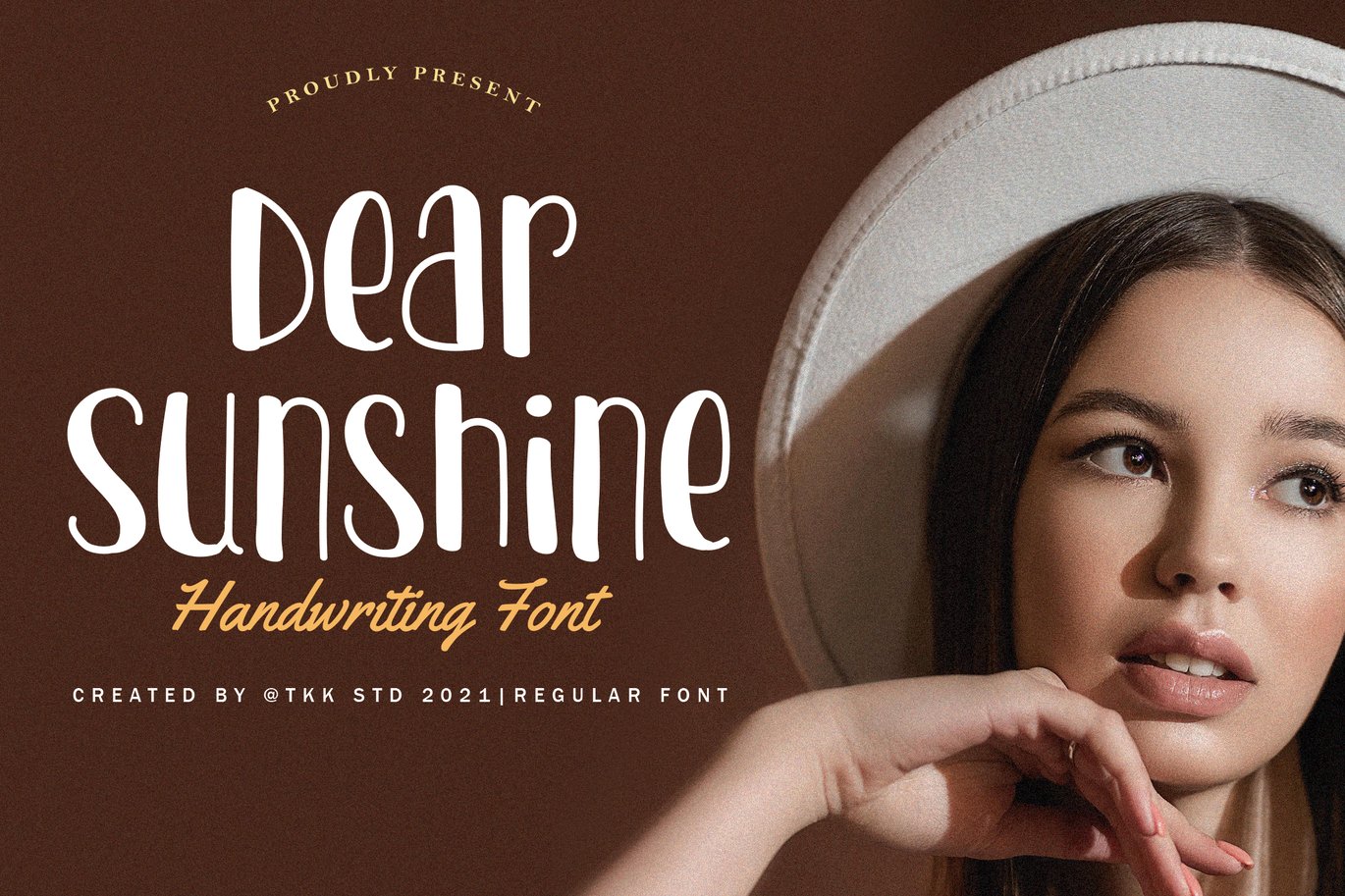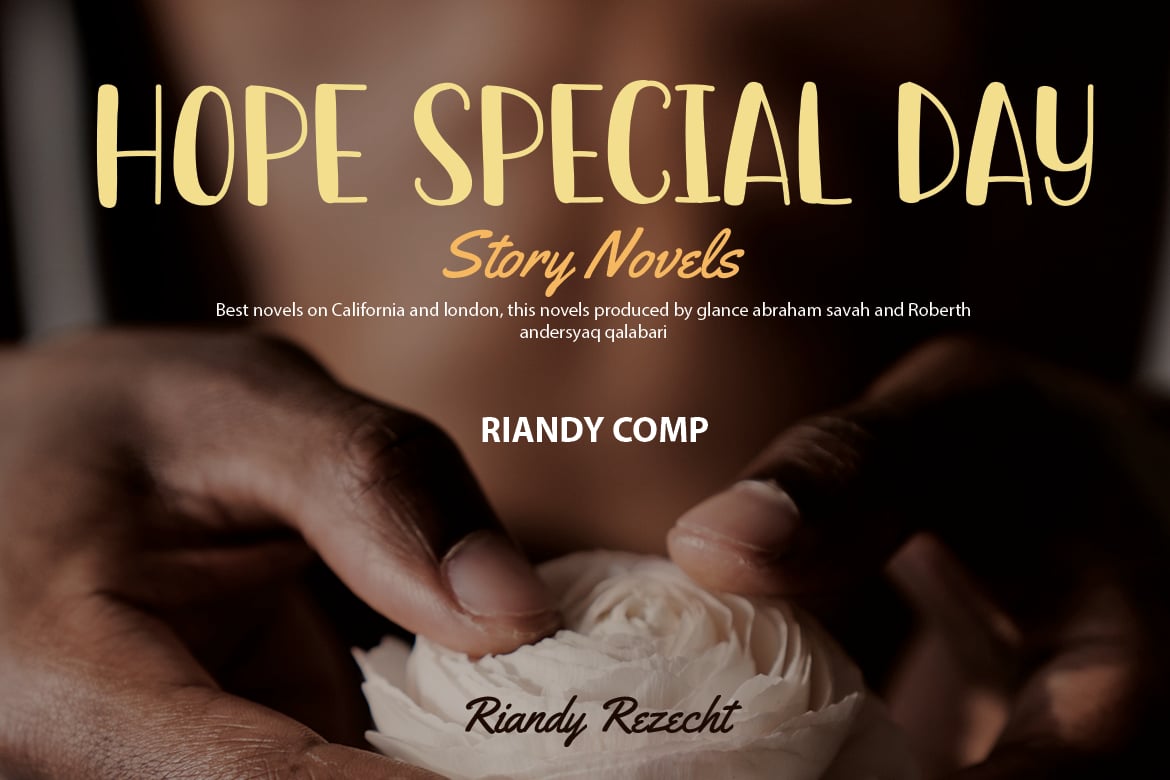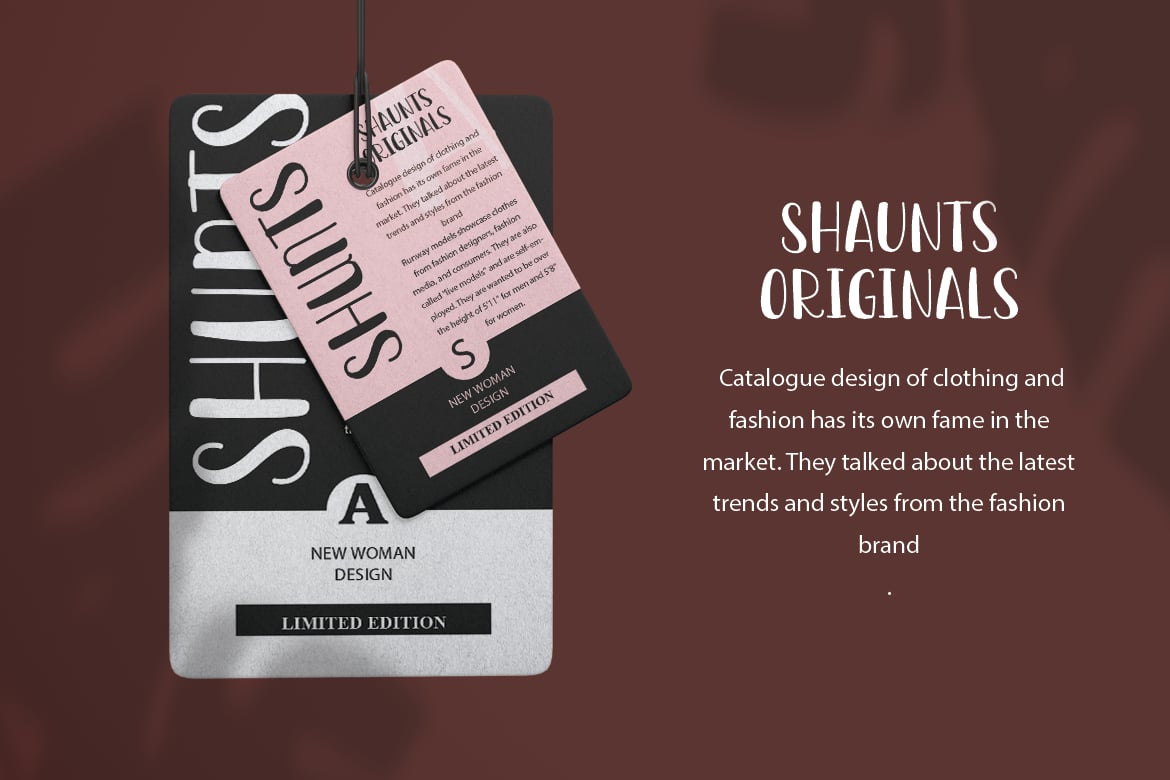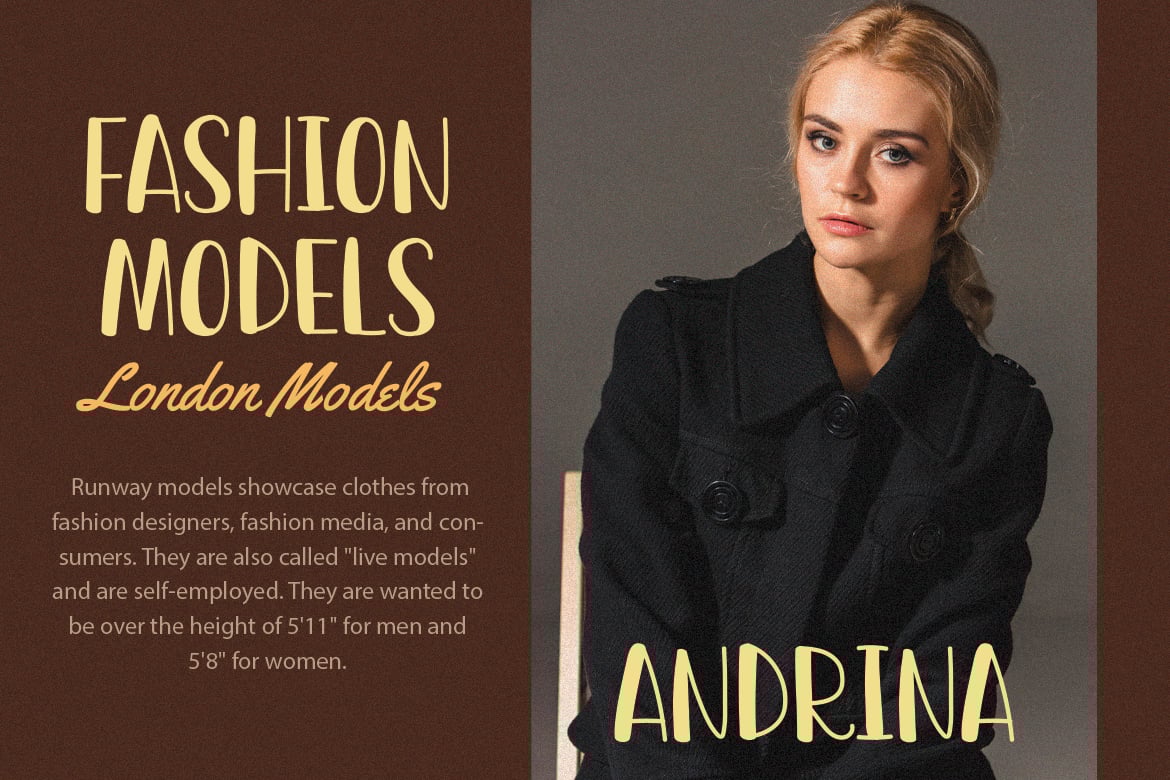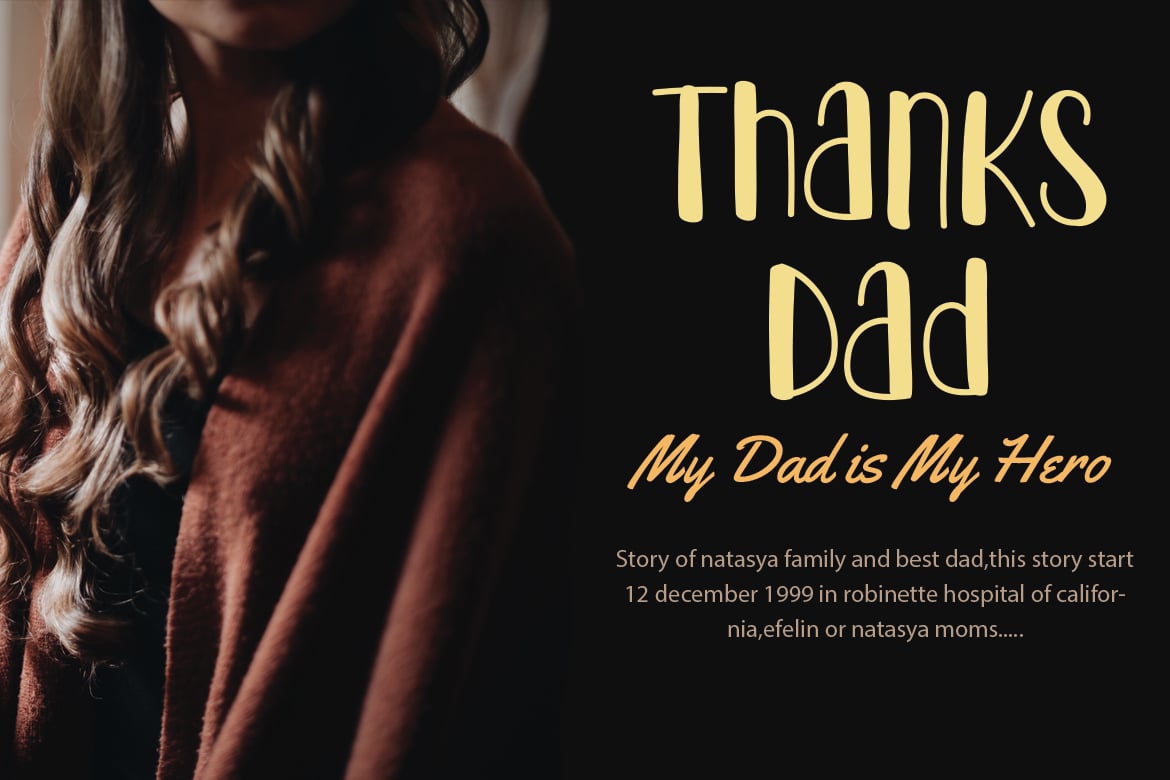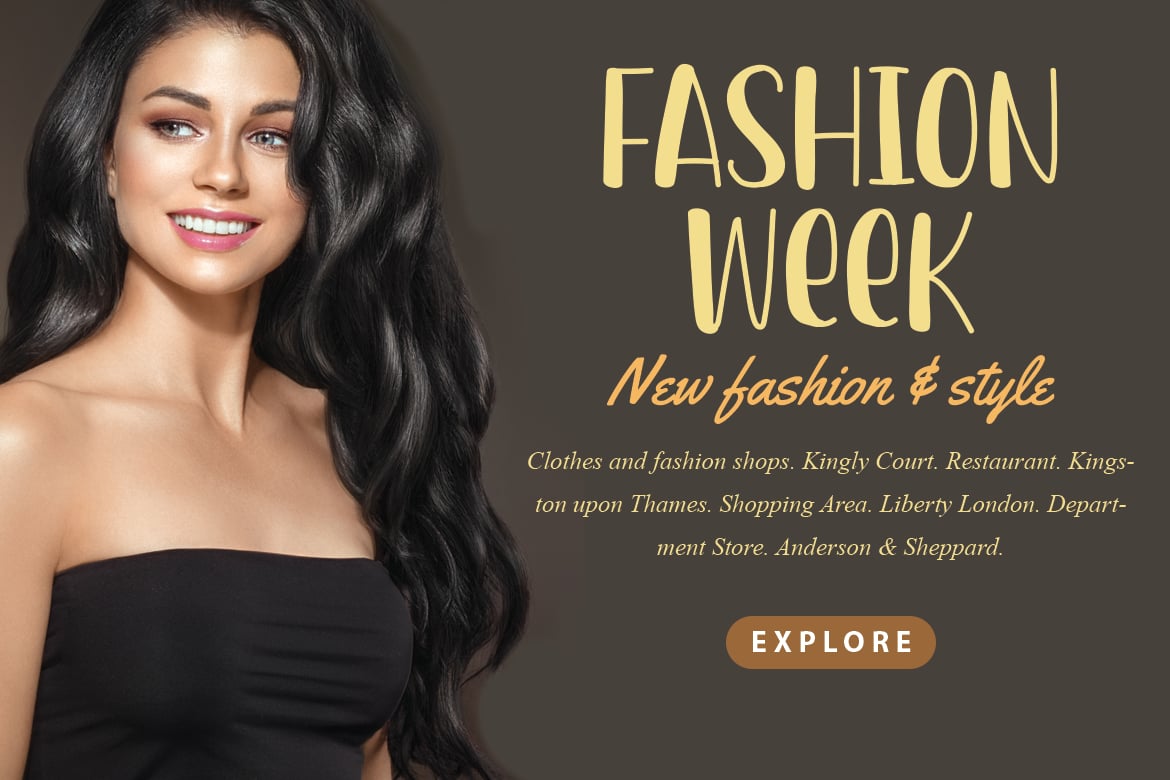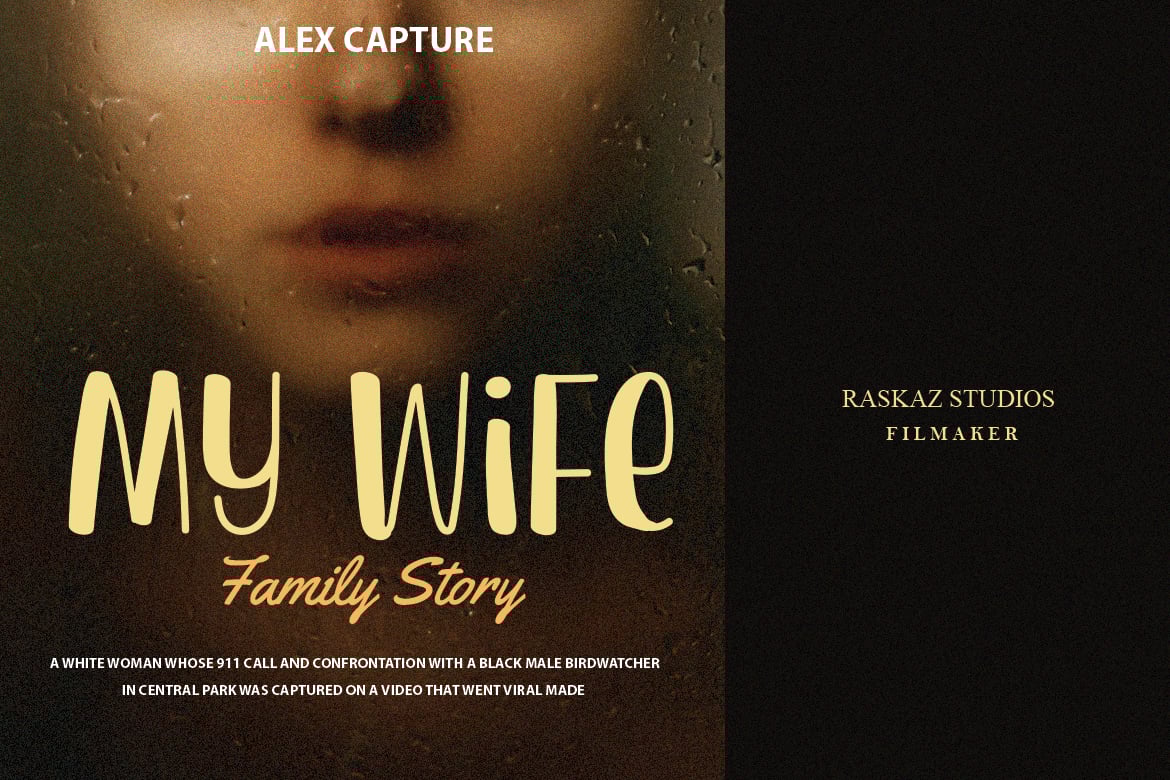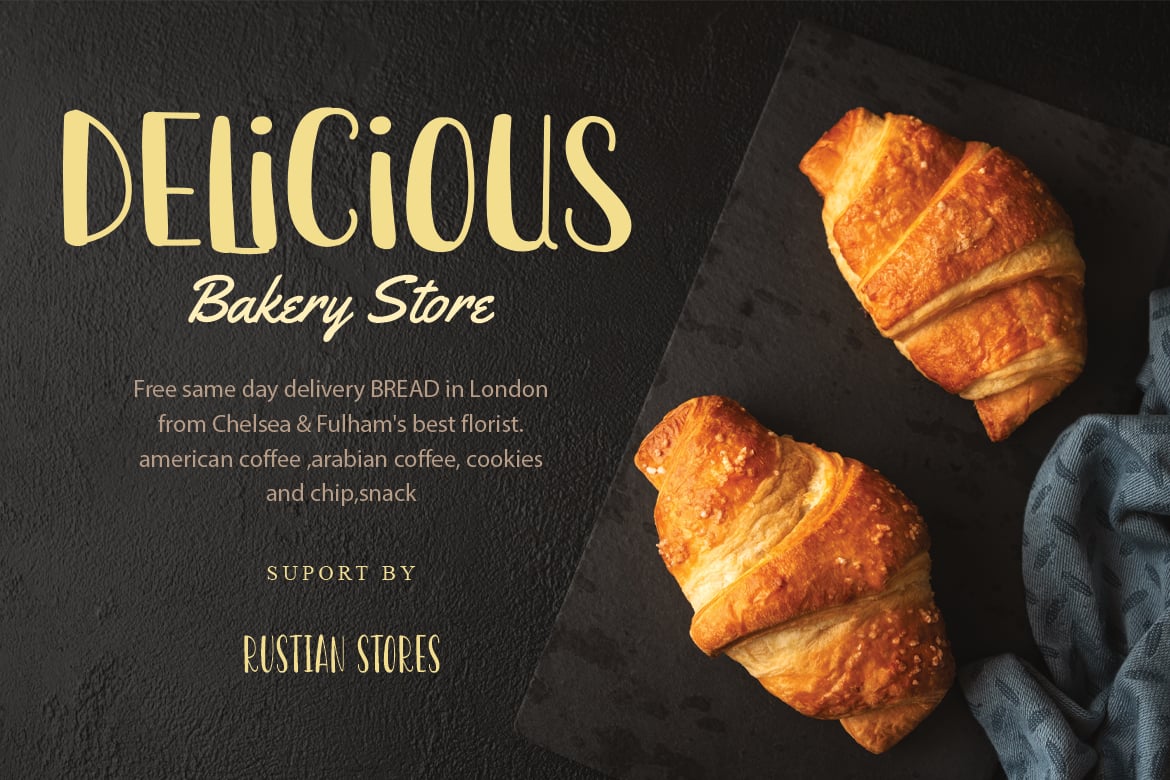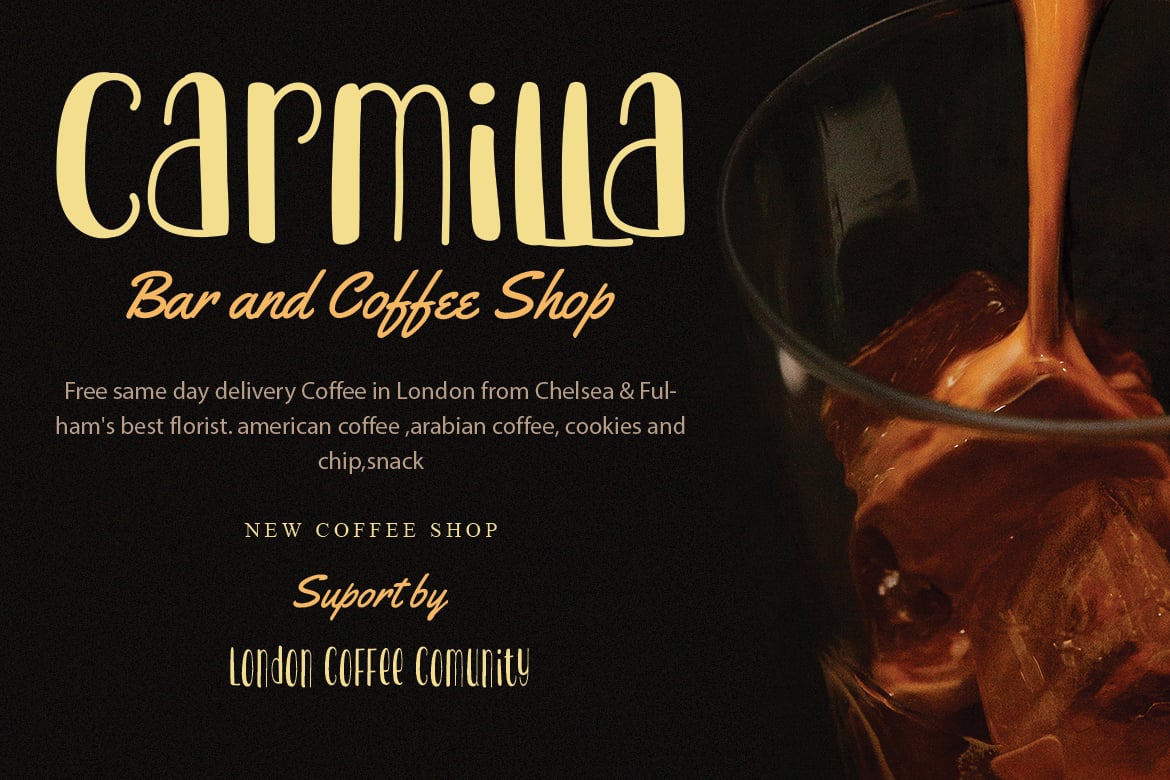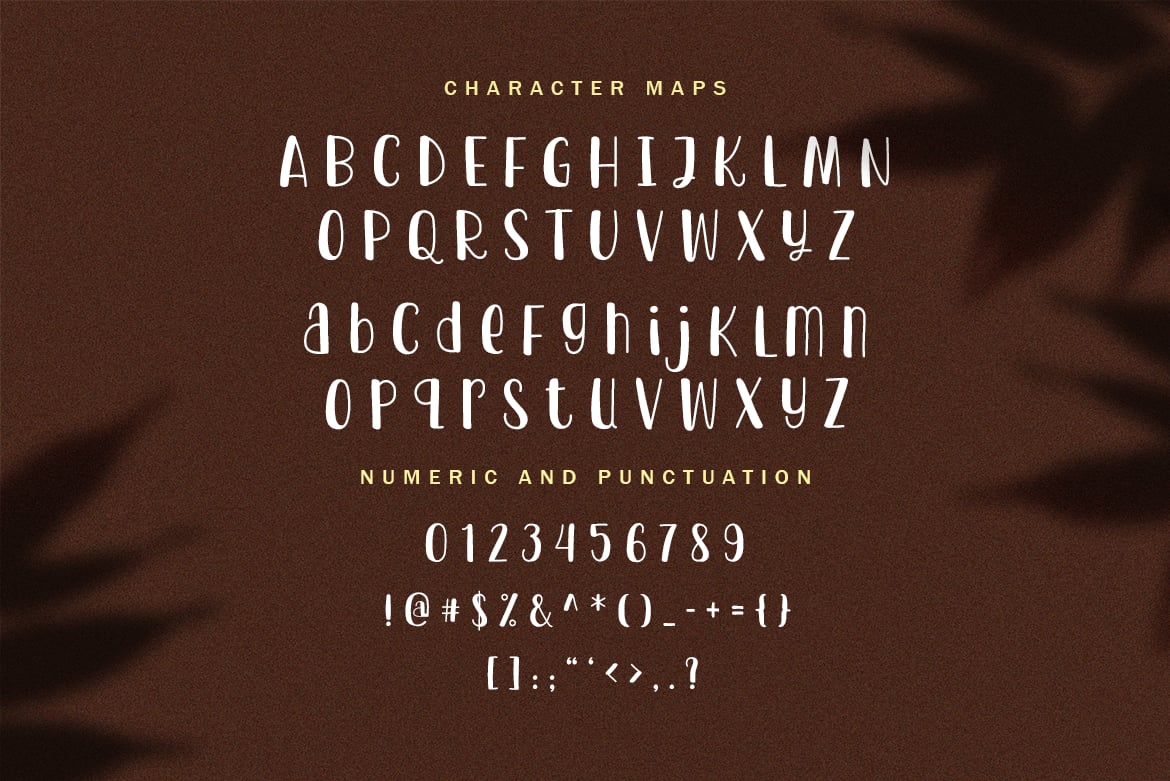
Dear Sunshine – Girly Font
Dear Sunshine- Cute Girly Font
Chic and attractive, and having an outgoing personalities. Dear Sunshine will emphasize the cuteness and chic girly vibe that you want to have on your design.
Suit perfectly for instagram post, instagram story, boho and scandi interior poster,home decoration, furniture catalogue, boho invitation card, wall decor, leaflet, brochure for any boho theme event, youtube channels, youtube cover, youtube thumbnail, subtitle for a bohemian theme song and so on…